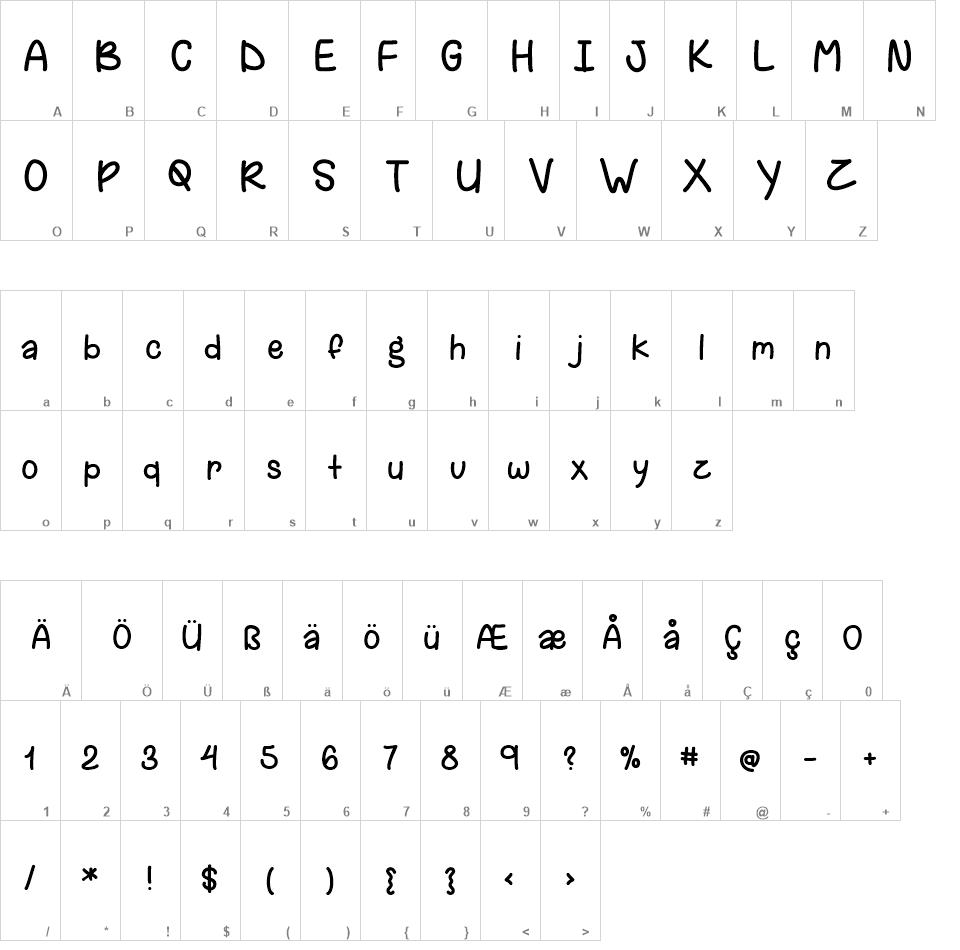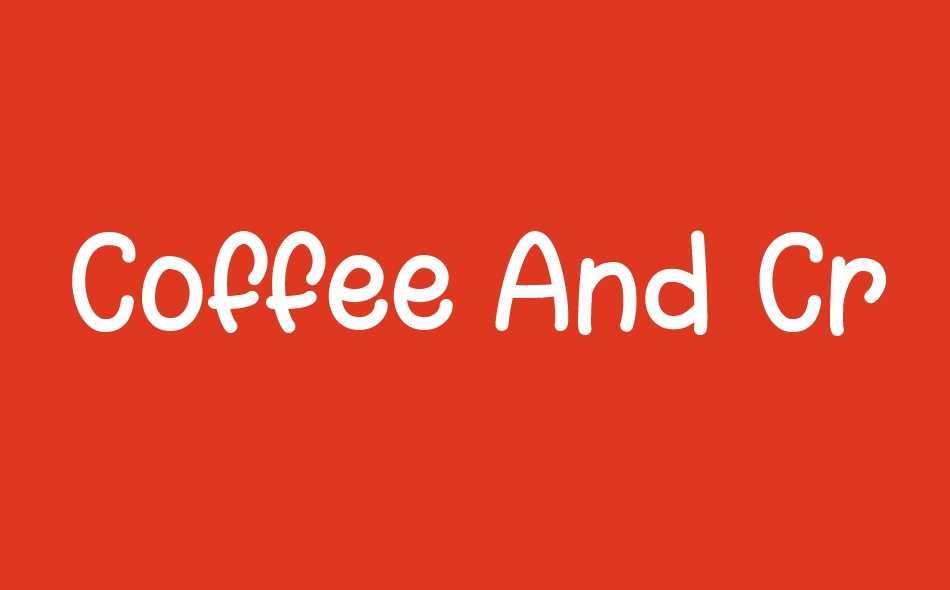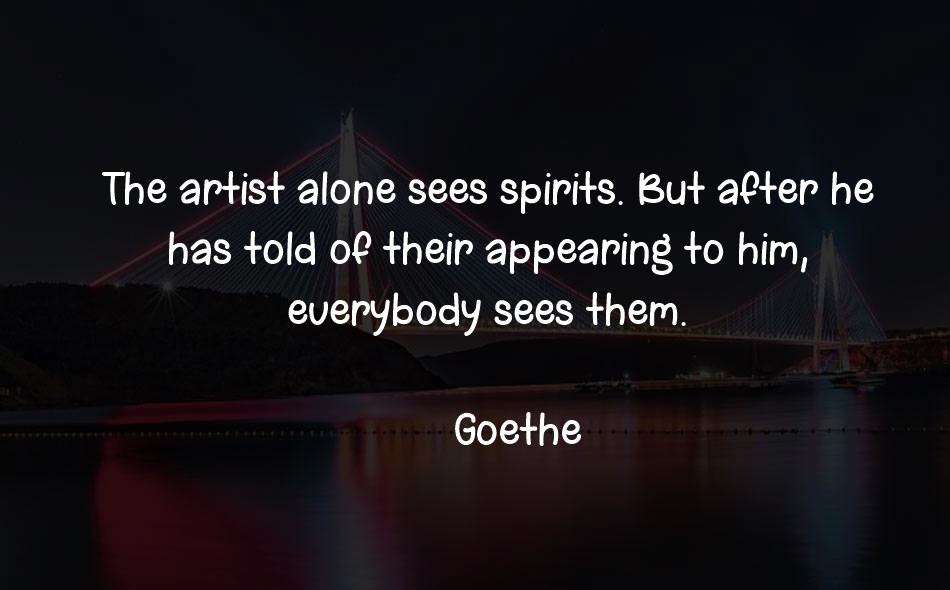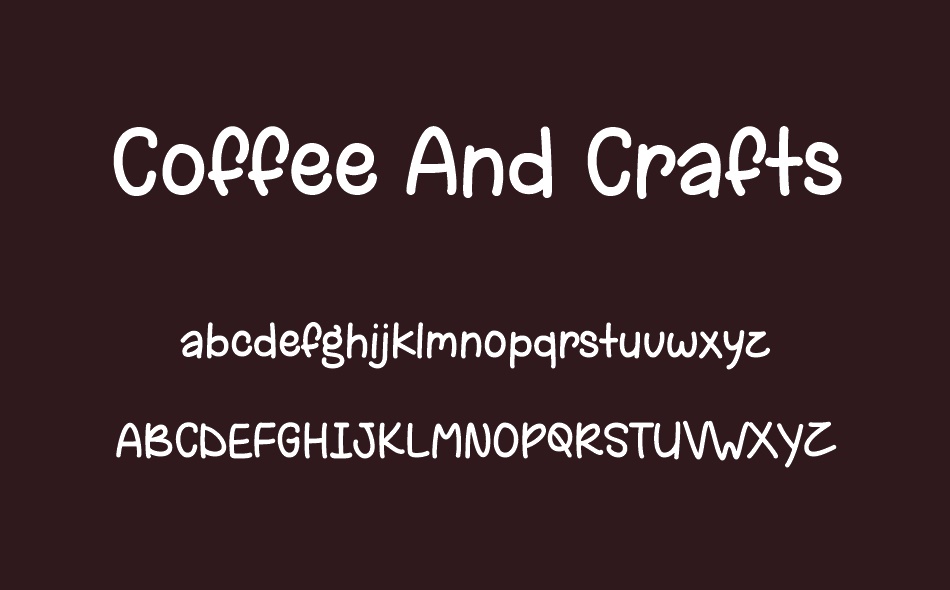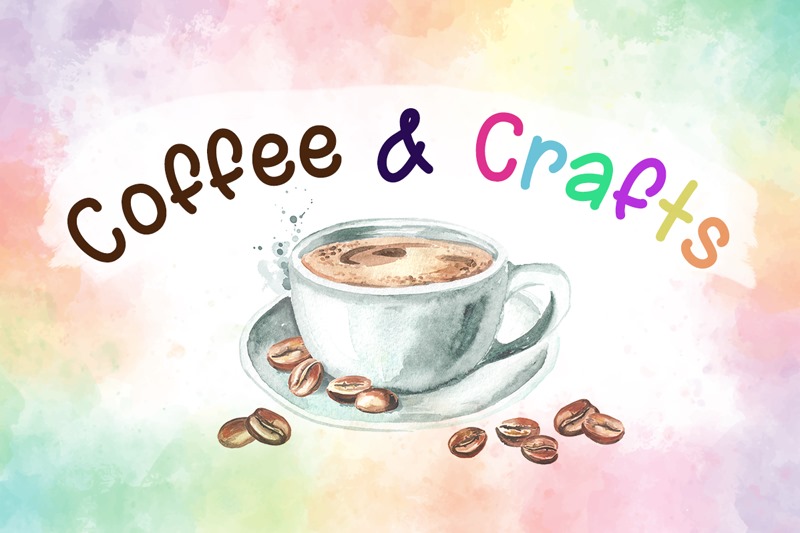
Coffee And Crafts font
Coffee and Crafts is a charming and whimsical typeface that is perfect for a variety of usages. It would look amazing in Etsy shop logos and banners, TikTok videos, greeting cards, sublimation projects, personalized gifts and anything else you can imagine!